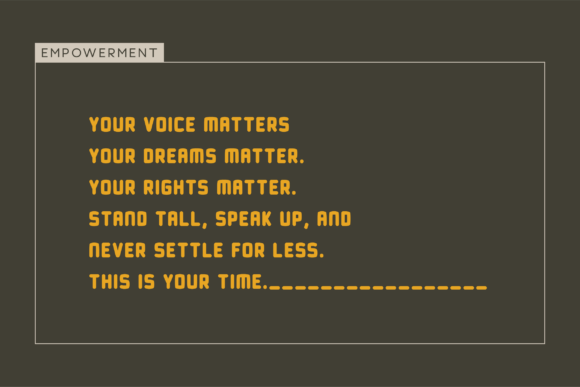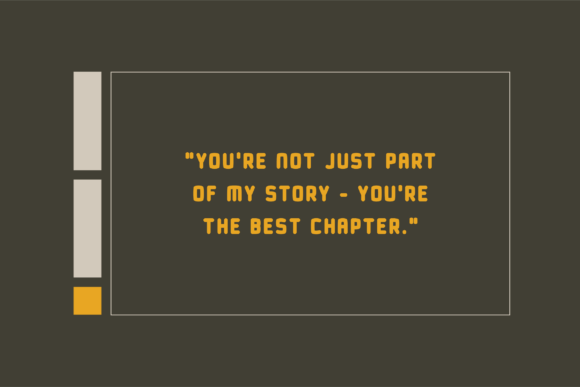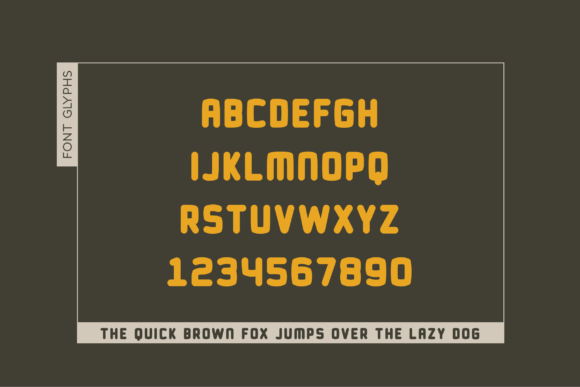
Introduction to Goerban Font
Introducing Goerban, a delightfully eccentric all caps font.
Composed of capital alphabets A-Z, numbers 0-9 along with accented characters and punctuations, Goerban is a font that refuses to blend into the crowd Dialing up the creative quotient, this font acts as a perfect accompaniment for all your social media activities and craft-centric ideas.
Goerban Font offers exceptional quality and versatility, making it a valuable addition to your design toolkit. Whether you’re creating for personal projects or commercial use, Goerban Font delivers professional results.